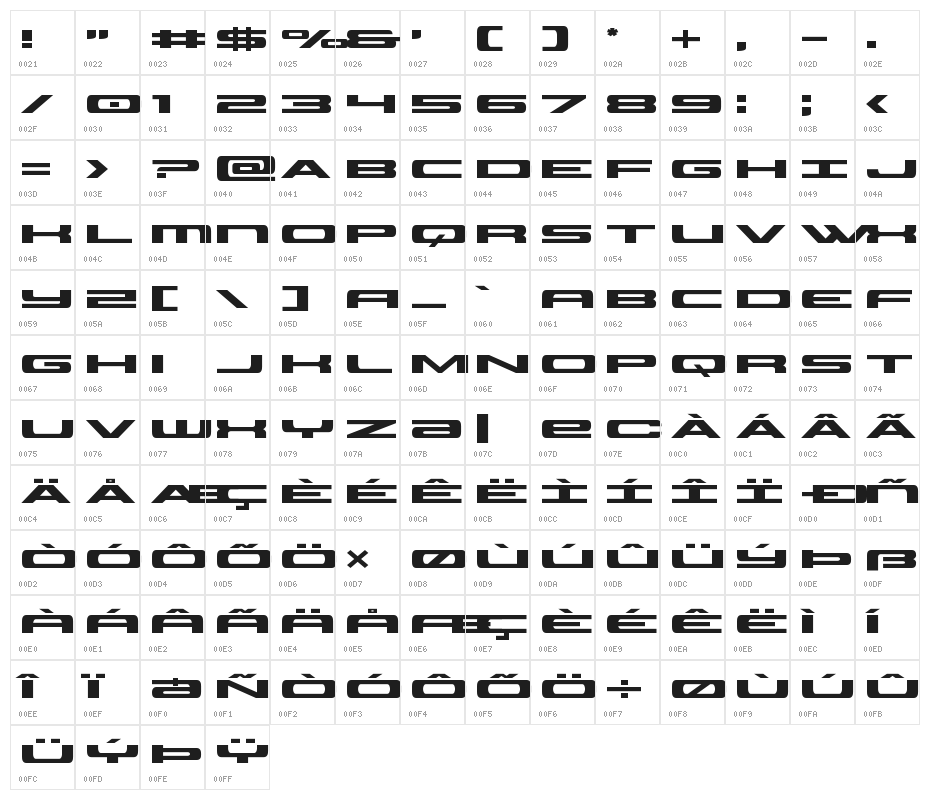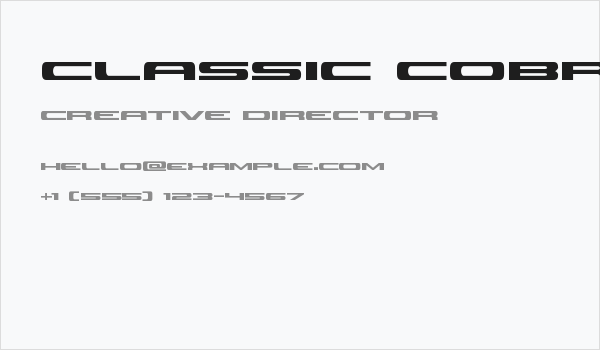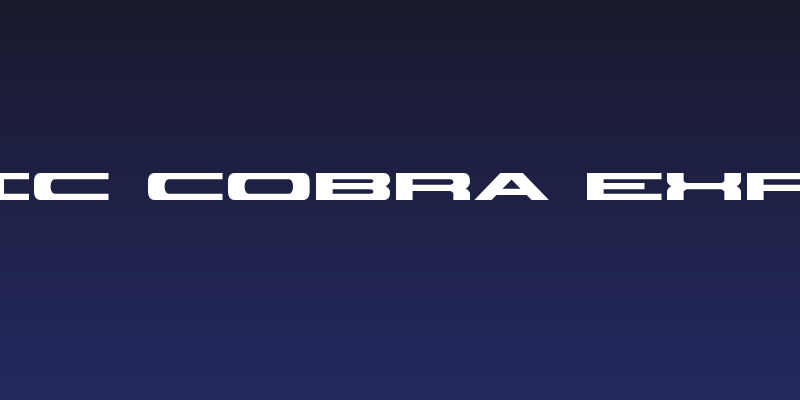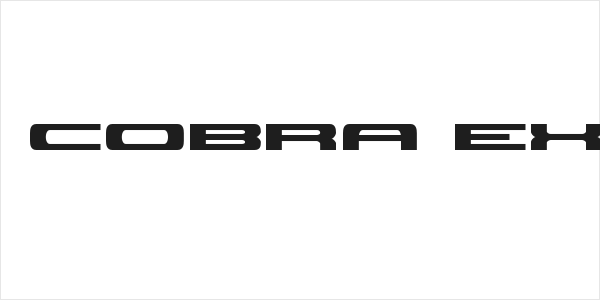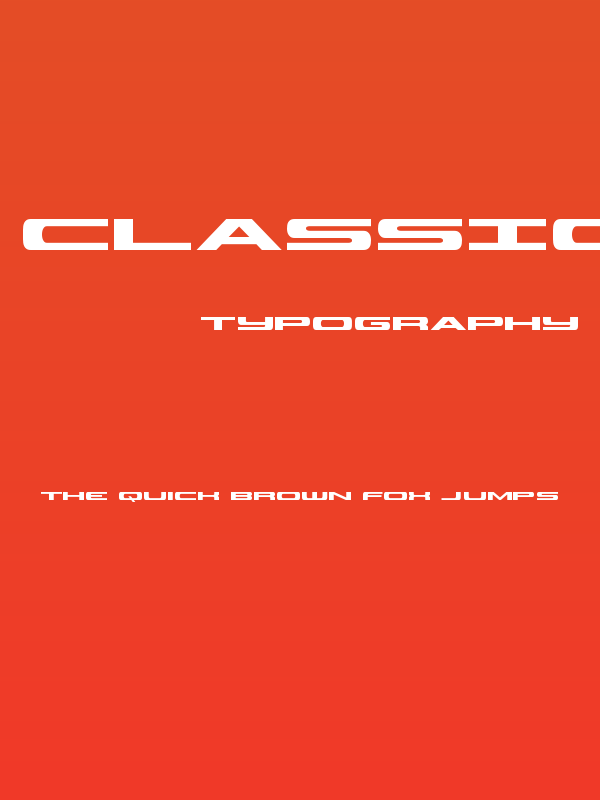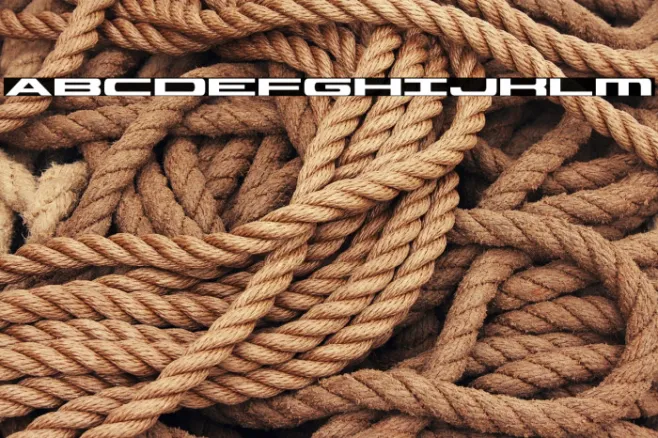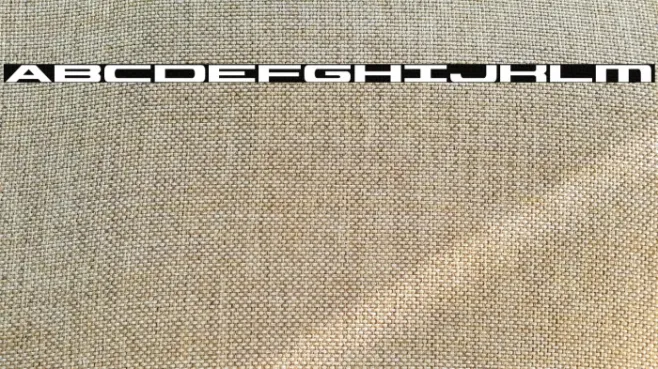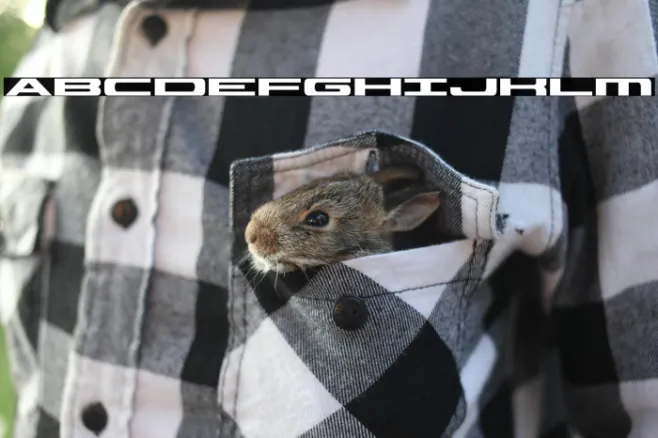
Classic Cobra Expanded Font
Classic Cobra Expanded Description
This font features a bold and futuristic design with a distinctly geometric and angular style. The characters are wide and expanded, giving them a strong presence. The uppercase letters are particularly striking, with sharp edges and a modern aesthetic. The lowercase letters maintain the same boldness and geometric form, ensuring consistency throughout the typeface. Numbers and special characters are designed to match the overall style, making this font suitable for a variety of applications where a bold and modern look is desired.
| Proposed Projects | Ideal for technology branding, sci-fi themed projects, video game titles, and modern advertising campaigns. |